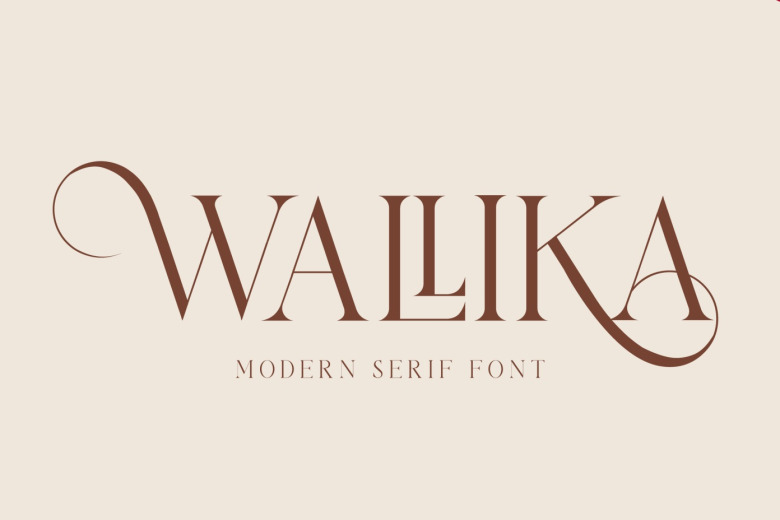
Wallika Modern Font
Wallika is a perfect font. This typeface is perfect for your elegant & luxurious logos, book or movie title designs, fashion brands, magazines, clothing, looks, quotes and many more.
Wallika Modern Serif Font